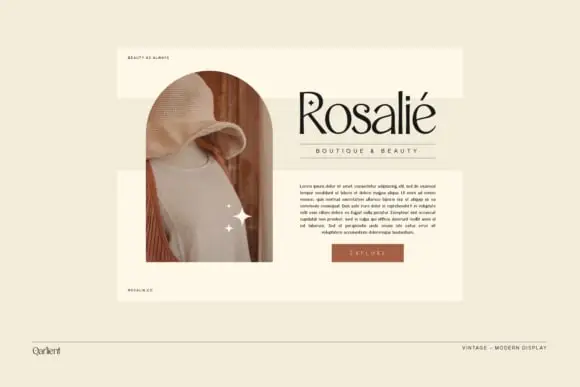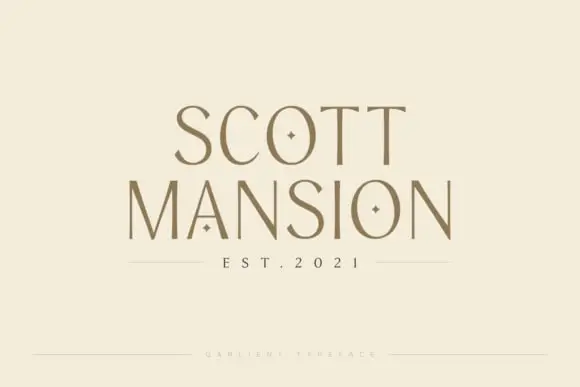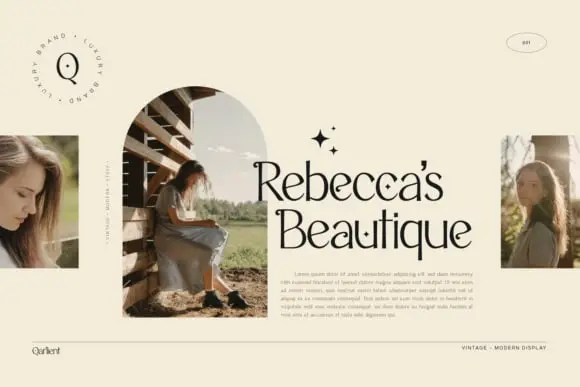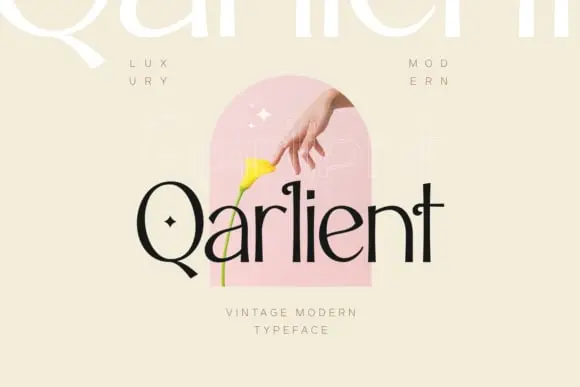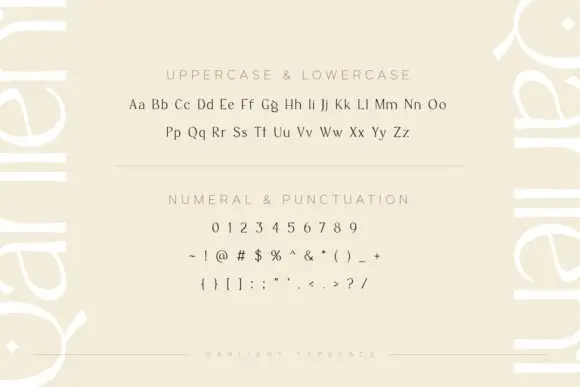
Pixesia Studio-Qarlient Font
The Pixesia Studio-Qarlient Font is a versatile typeface designed for a range of creative applications. With its unique blend of modern and classic elements, this font is perfect for branding, logos, web design, and print materials.
• Multiple weights for flexibility in design
• Stylish and contemporary letterforms
• Clear legibility in both large and small sizes
• Ideal for creating eye-catching logos and branding materials
• Use in web design for a modern look
• Perfect for print projects such as flyers and business cards